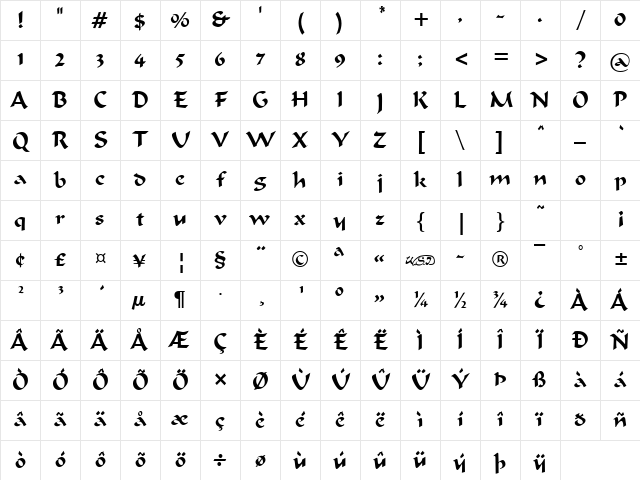
Ignacious normal
Style: normal
Ignacious Family
Ignacious normal
Design Context for Ignacious
Ignacious is a composed and adaptable typeface that performs quietly and consistently across a wide range of design contexts.